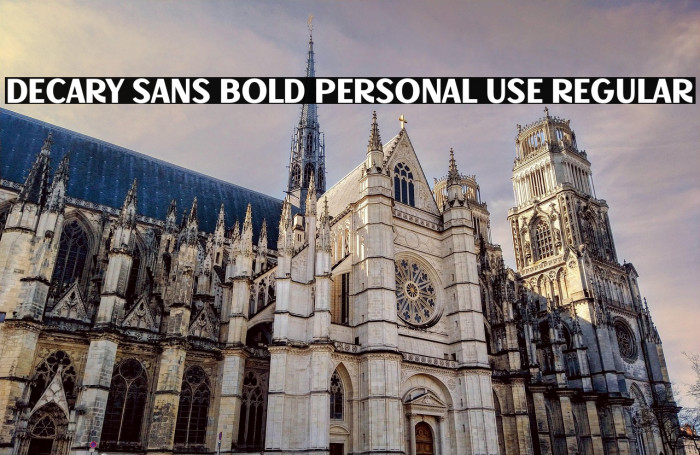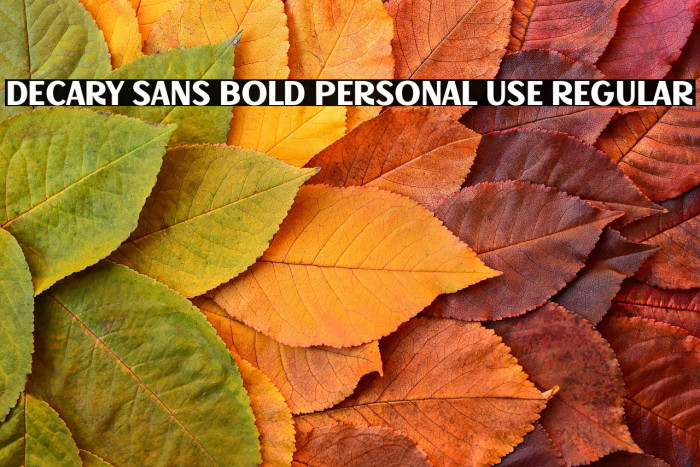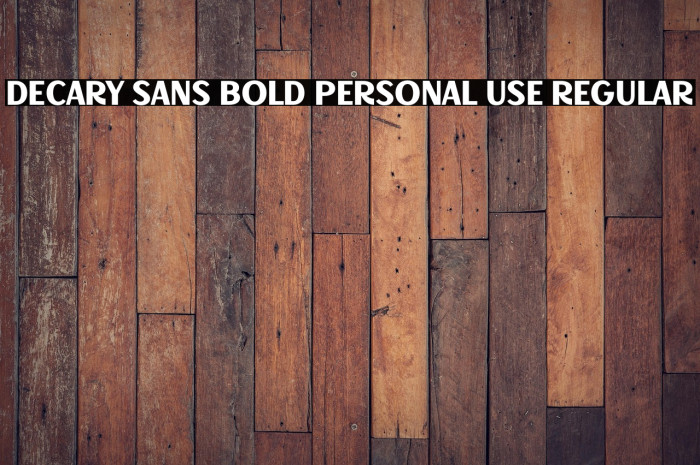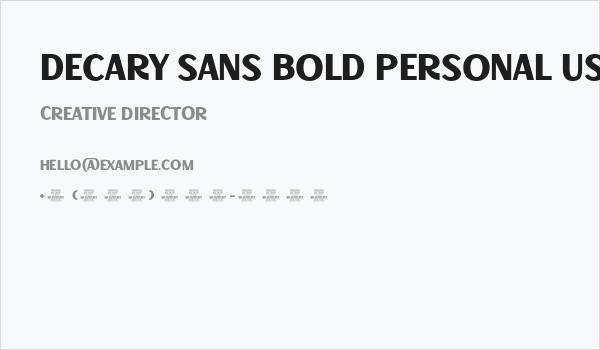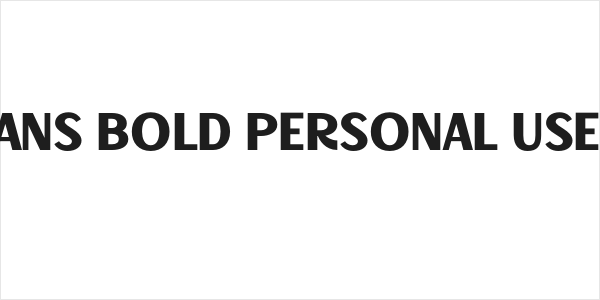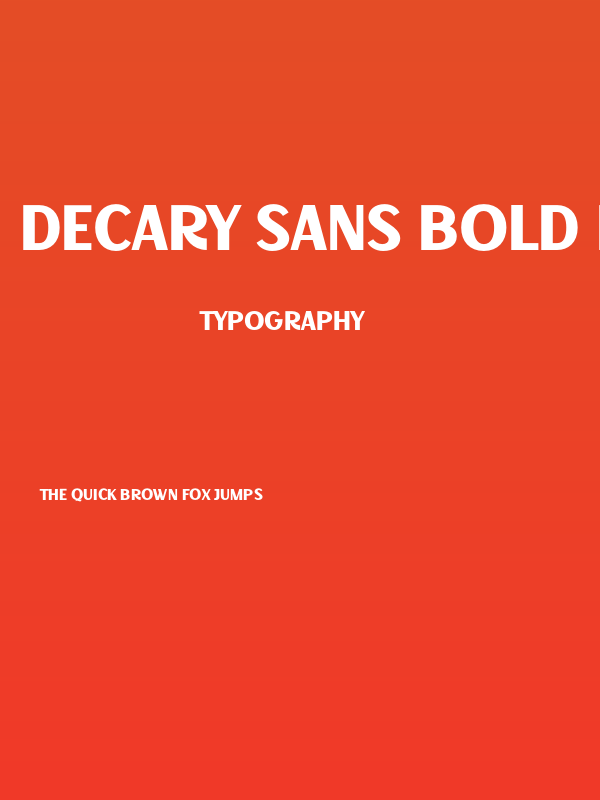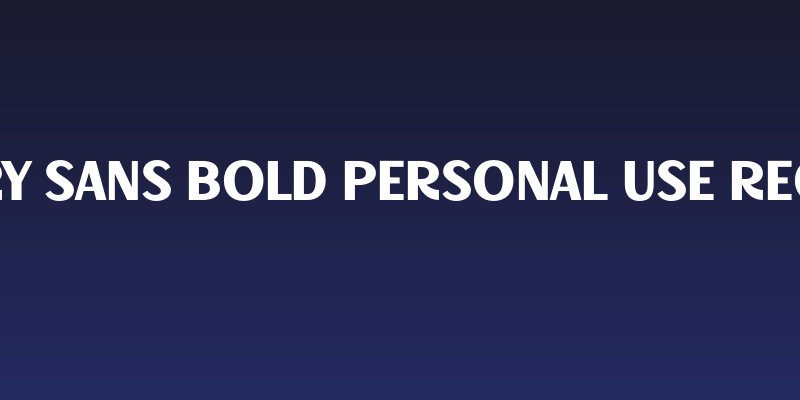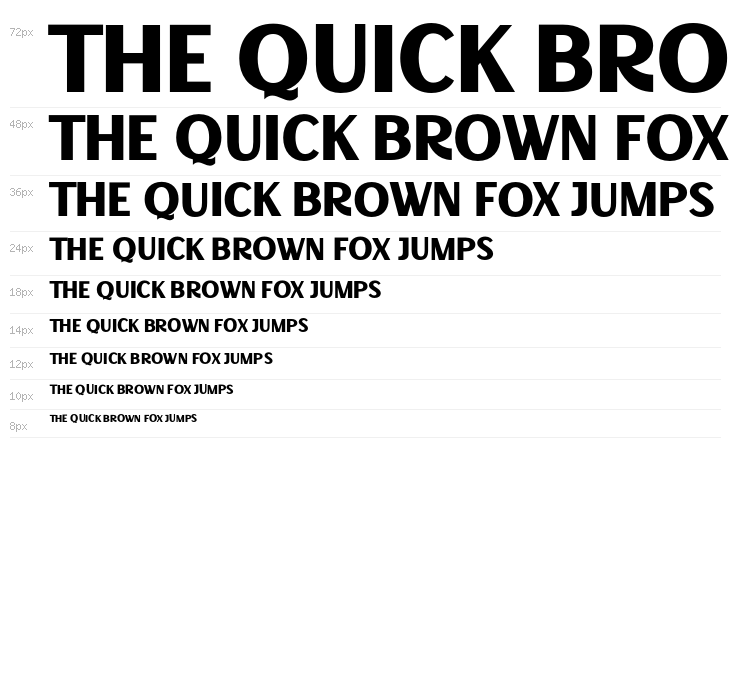
Decary Sans Bold PERSONAL USE Regular Font
Decary Sans Bold PERSONAL USE Regular Description
This font features a bold and commanding presence with its thick strokes and clean lines. The uppercase letters are uniform in height, creating a sense of stability and strength. The characters are well-defined with a modern sans-serif style, making them easily readable. The spacing between characters is tight, which contributes to its compact and impactful appearance. The font includes a full set of uppercase letters, numbers, and a variety of special characters, making it versatile for different design needs. Its boldness and clarity make it suitable for attention-grabbing headlines and titles.
| Proposed Projects | Ideal for branding, advertising, posters, and any project requiring a bold statement. |